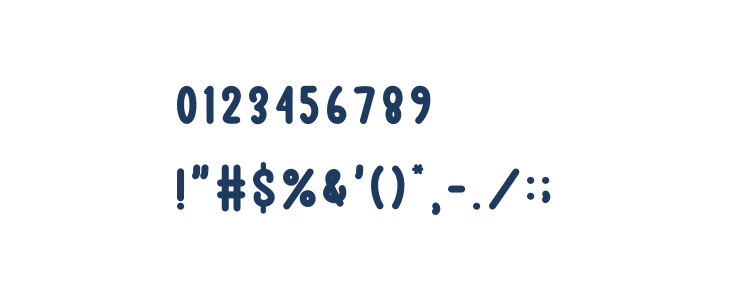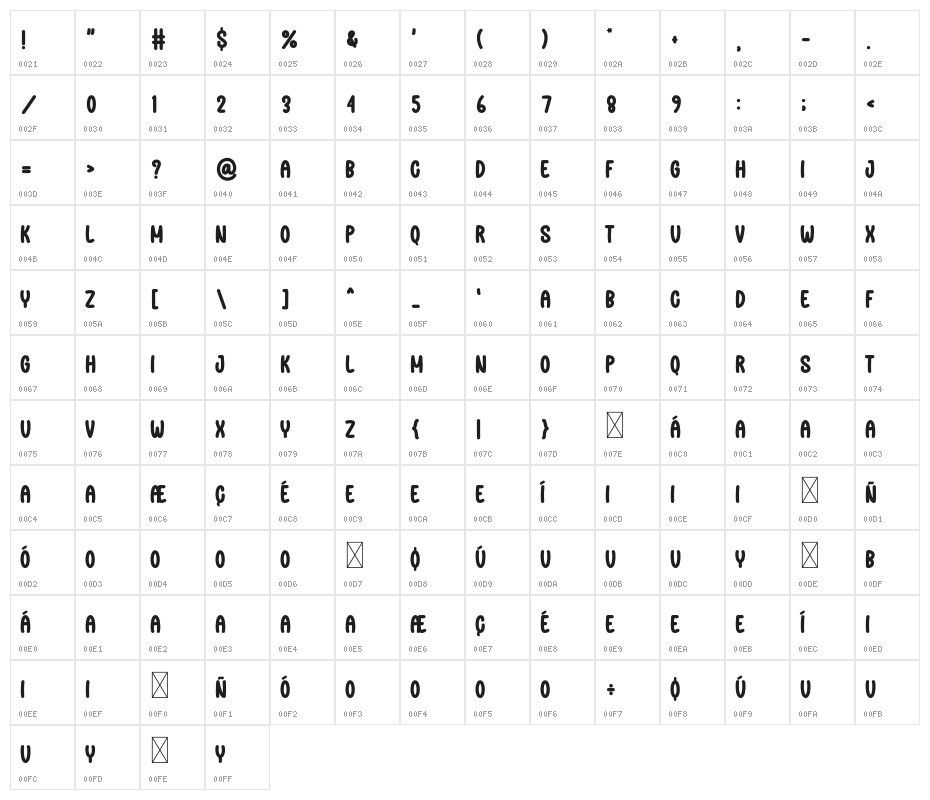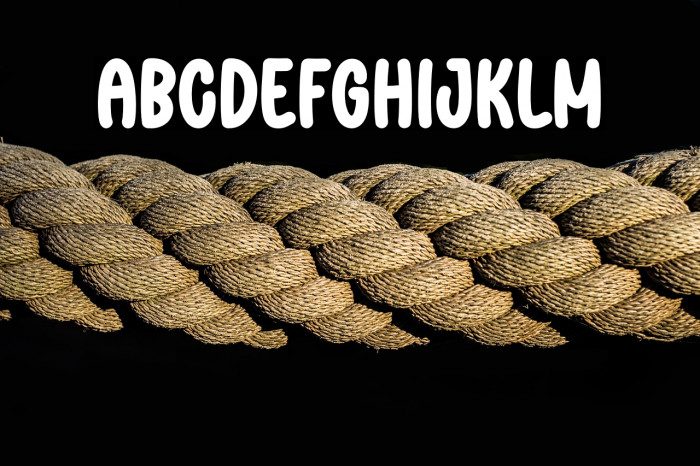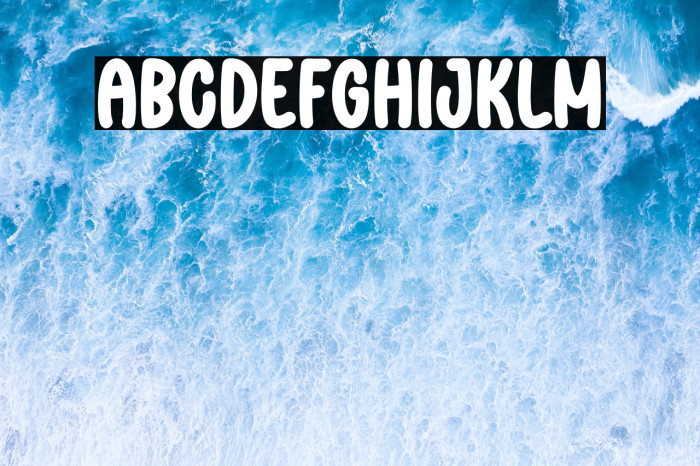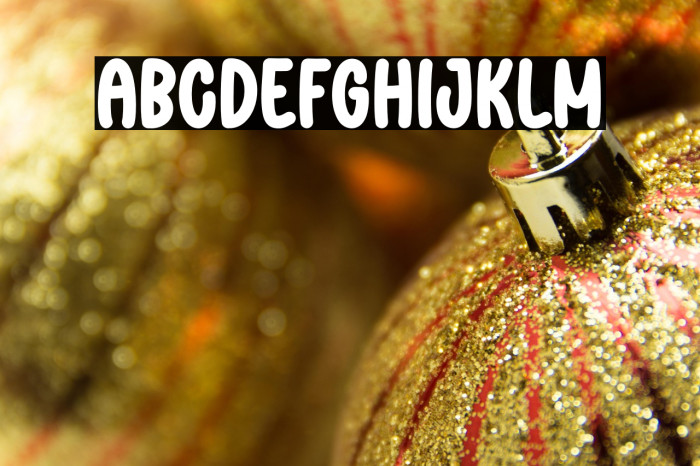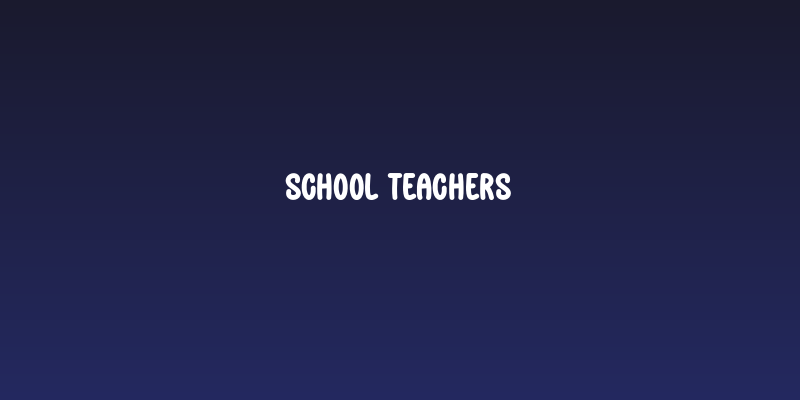
School Teachers Font
School Teachers Description
A playful, rounded sans-serif font with bold, uniform strokes and a handwritten, informal appearance. The characters are evenly spaced with a friendly and approachable style, suitable for educational or child-focused designs.
| Overall Style | Playful, Handwritten, Informal |
| Use Case | Headlines, Posters, Educational materials, Logos |
| Proposed Projects | Children's books, classroom materials, posters, educational games, playful branding. |